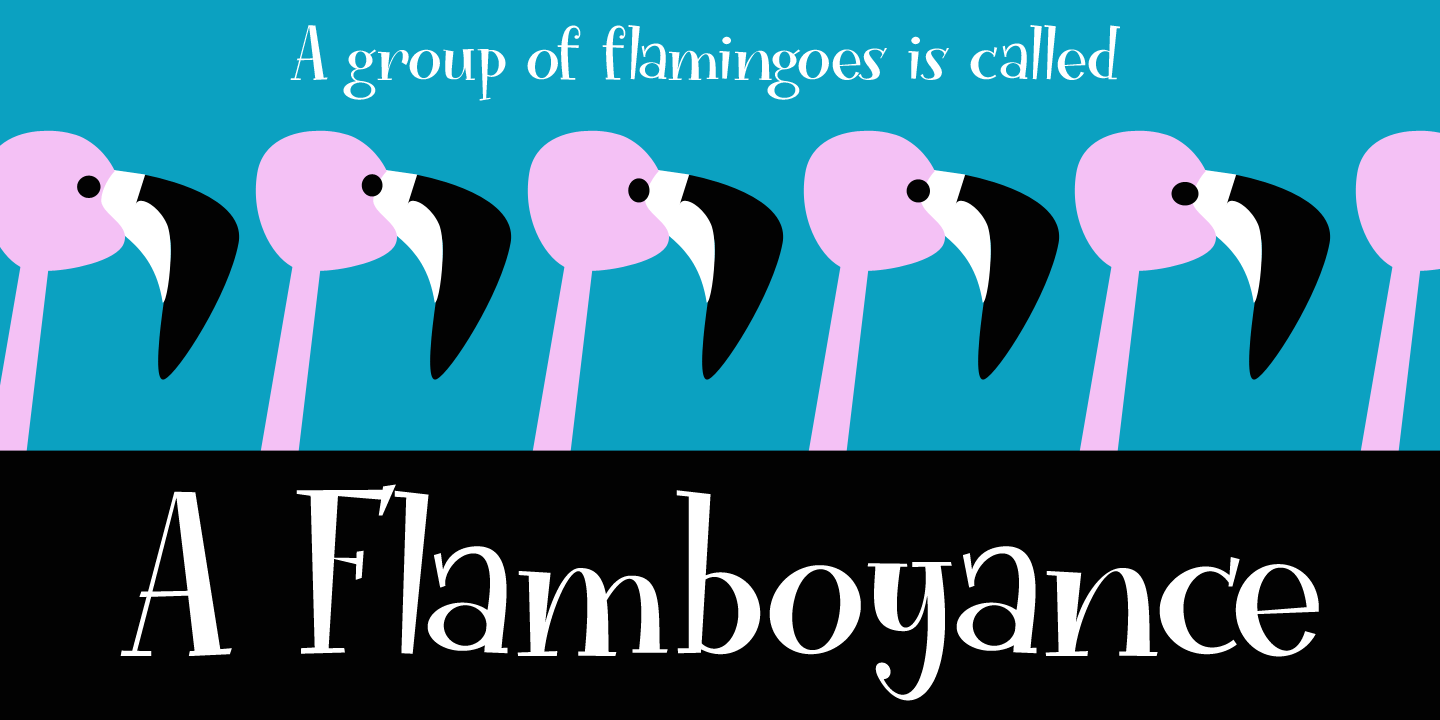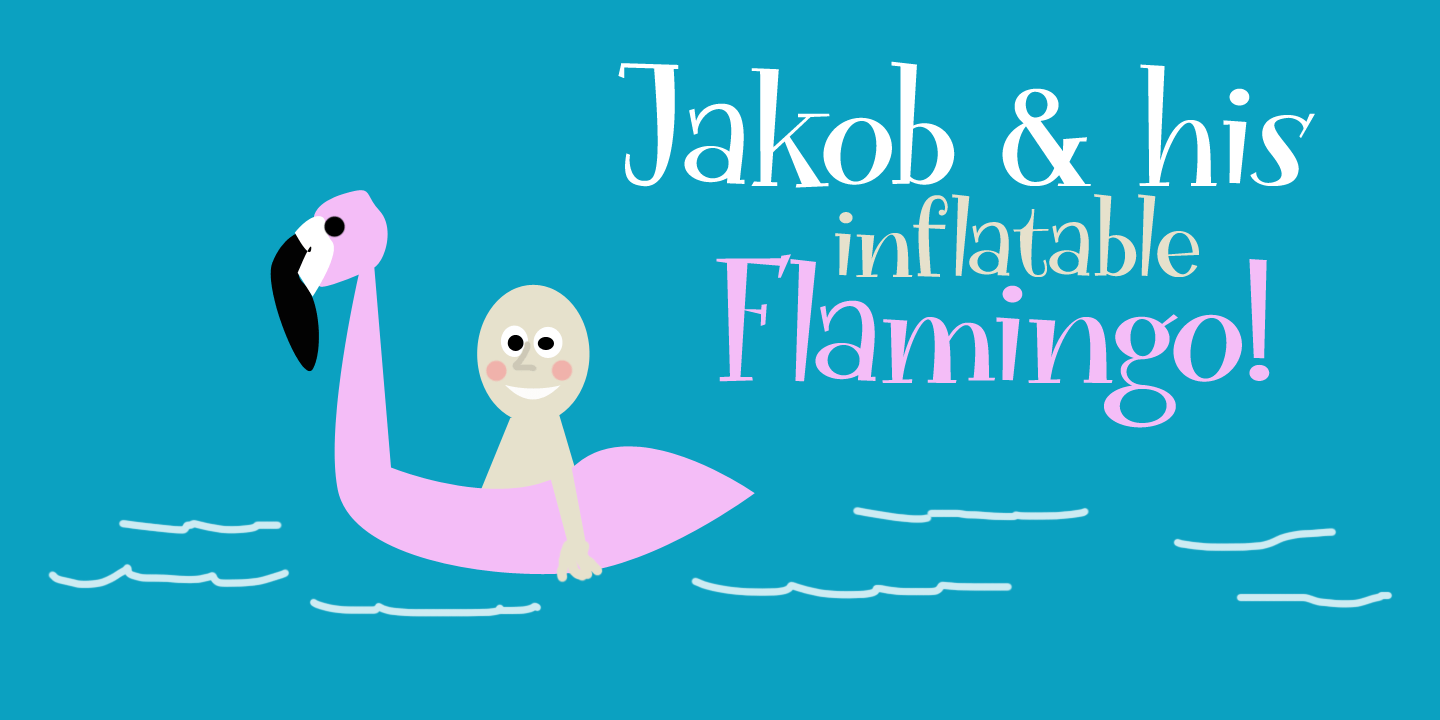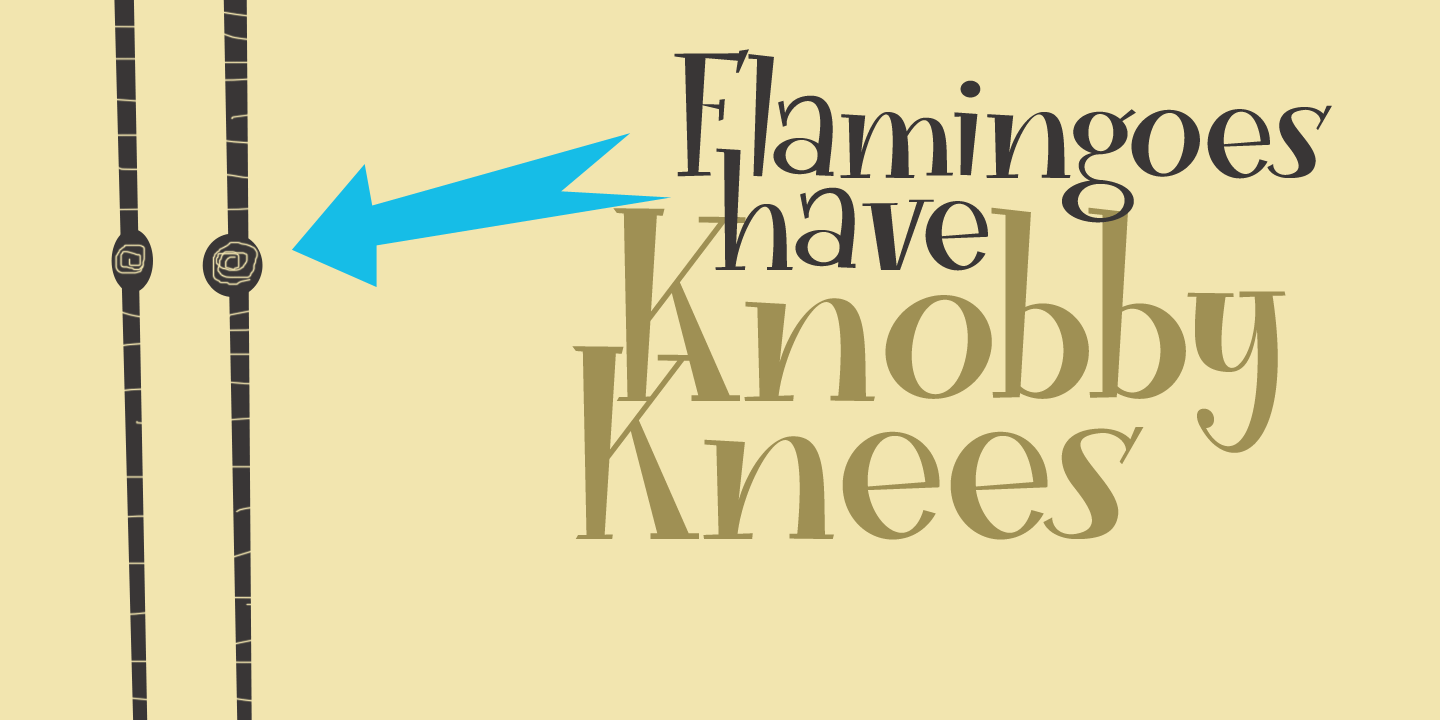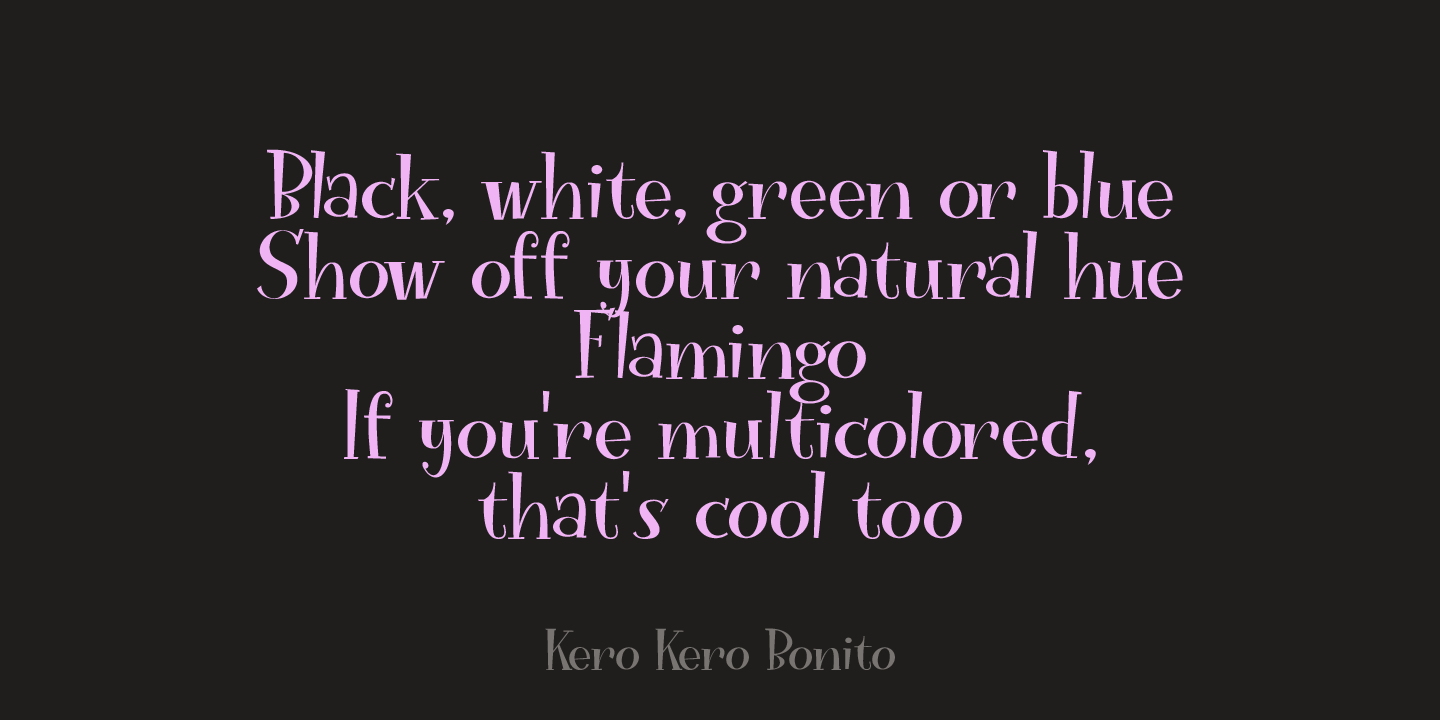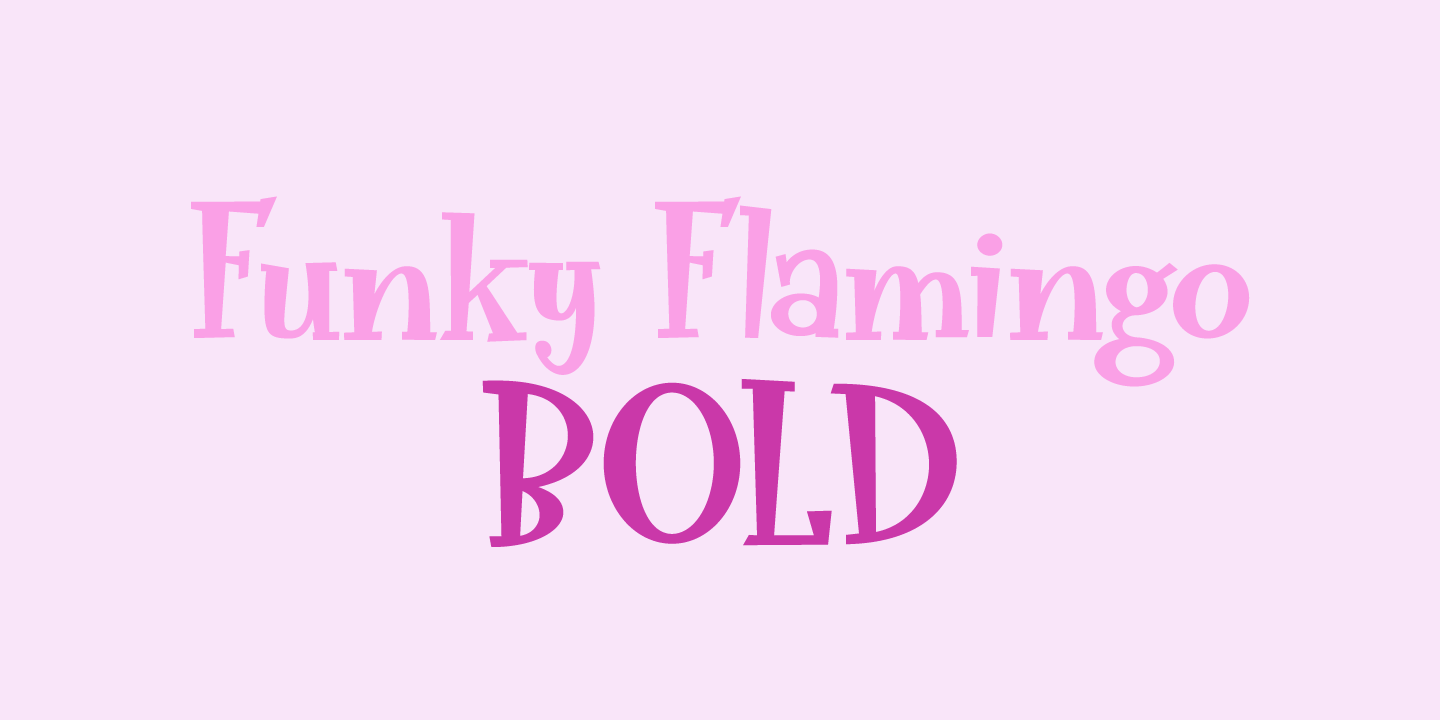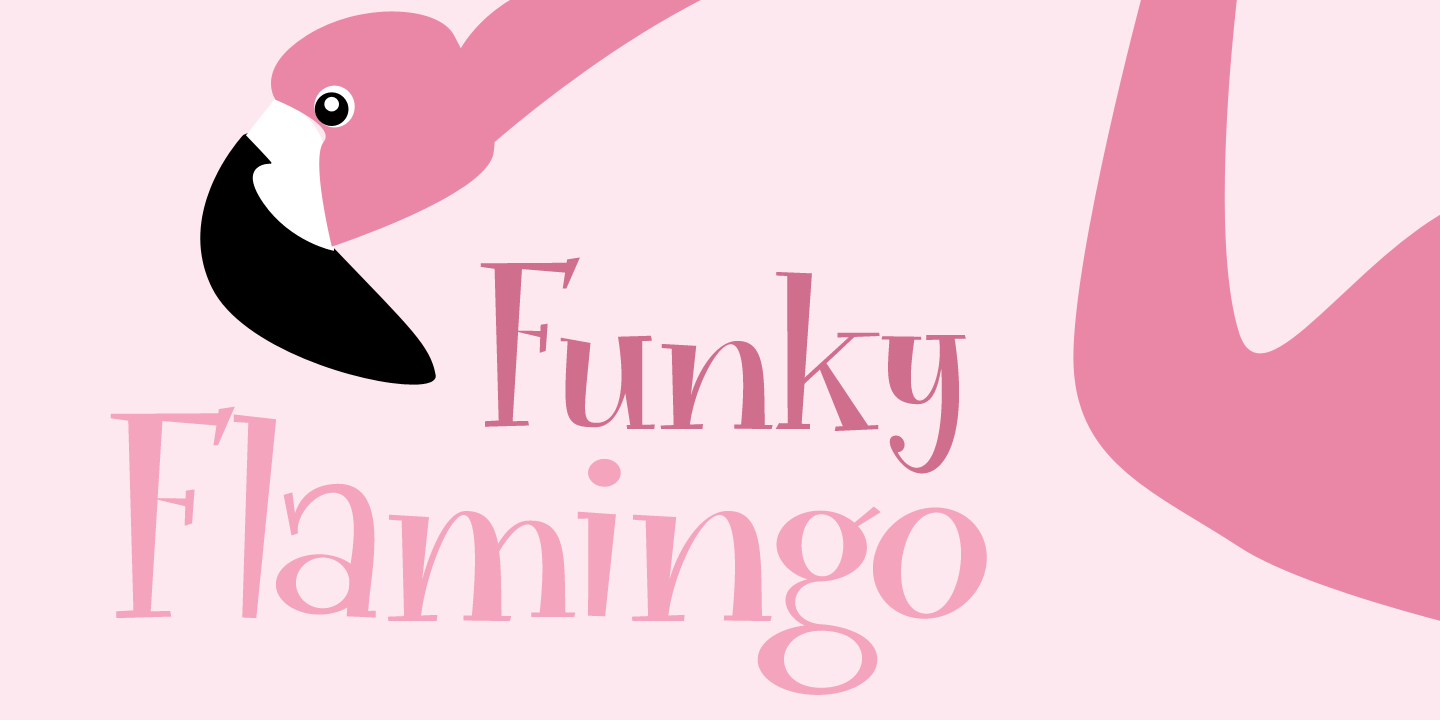
Funky Flamingo
About Funky Flamingo
I really can\’t tell you why I called this font Funky Flamingo. Normally I name fonts after something I see or do, but I don\’t have a special thing for flamingoes, nor do I keep them in my backyard. Funky Flamingo is a happy handmade serif with a retro…